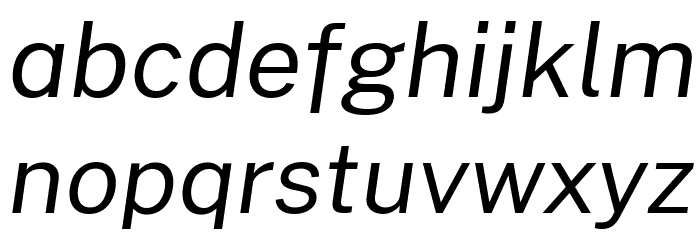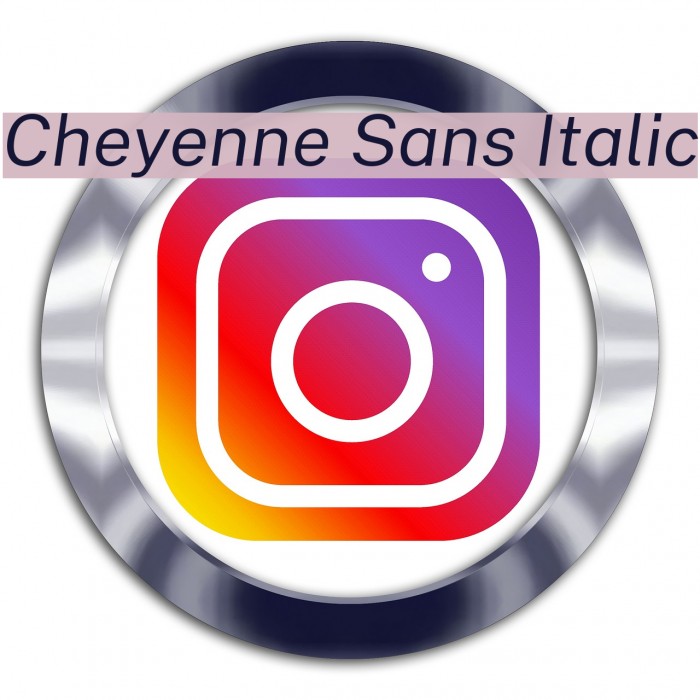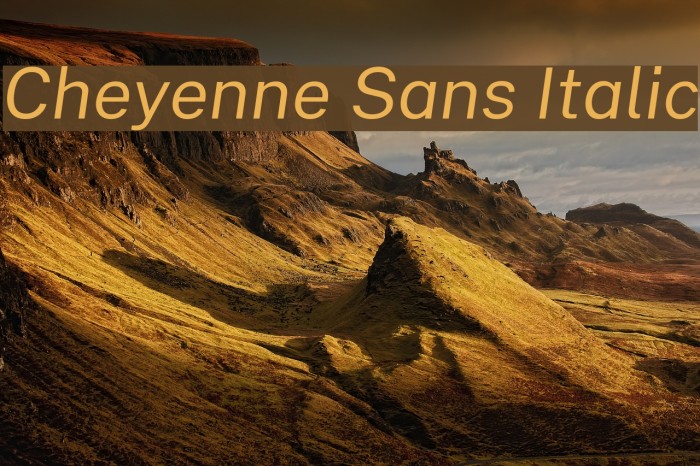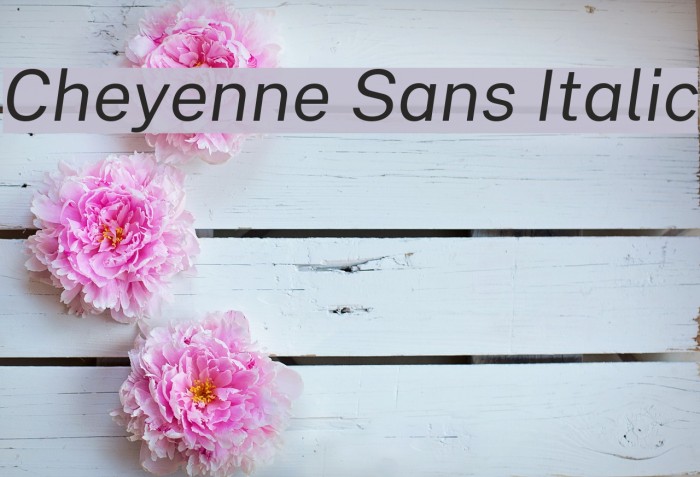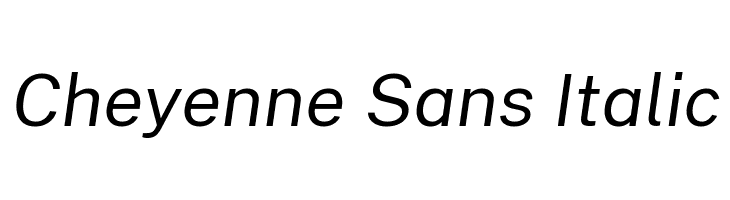
Cheyenne Sans Italic Font
This font features a clean and modern sans-serif style with a subtle italic slant, giving it a dynamic and contemporary appearance. The characters are well-proportioned with a consistent stroke width, contributing to its readability and versatility. The uppercase letters are bold and assertive, while the lowercase letters maintain a friendly and approachable feel. The numerals are clear and distinct, making them suitable for various applications. Special characters are included, enhancing its utility for diverse design needs. Overall, this font's sleek design makes it ideal for modern digital and print projects.
A modern sans-serif font with an italic slant, offering clarity and versatility.
- Proposed Projects: Ideal for digital interfaces, branding, advertising, and editorial design.